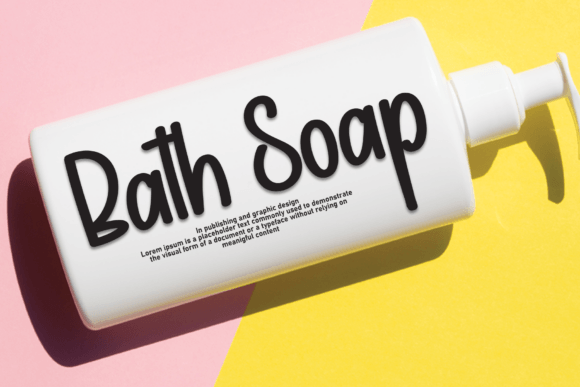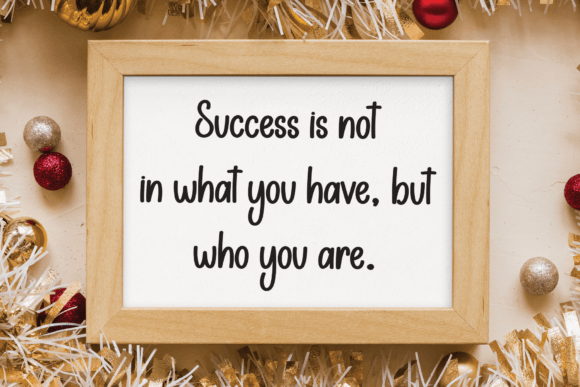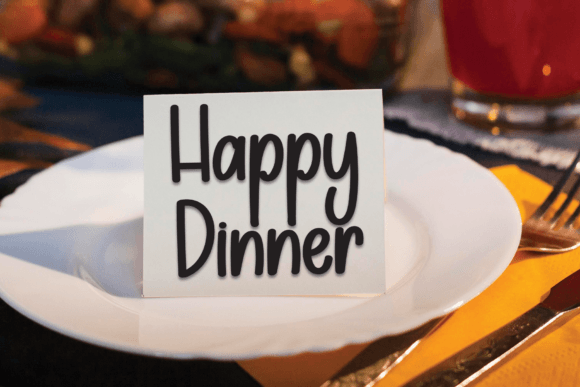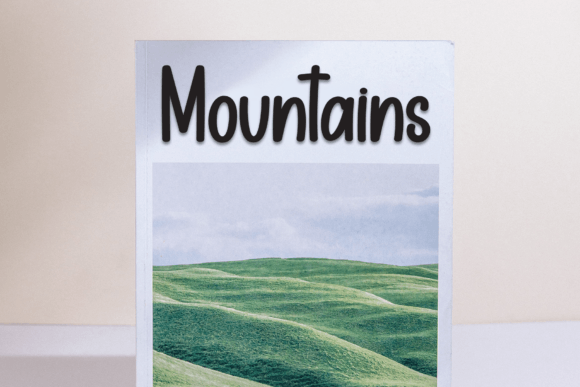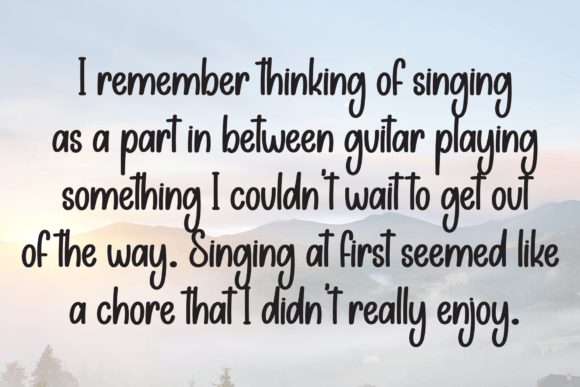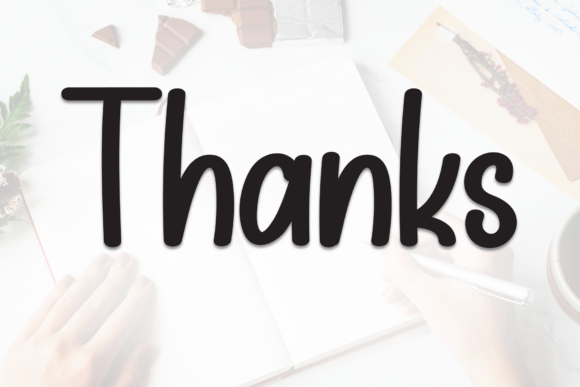
Introduction to Happy Saturday Font Font Font
Fonts play a crucial role in design, and the Happy Saturday Font Font font is a typeface that brings both character and versatility to any project. Whether you’re working on a branding project, a website, or a print design, the Happy Saturday Font Font font offers a unique style that can elevate your work.
Happy Saturday is a lovely and timeless handwritten font.
It is the best choice for creating eye catching logos, branding and quotes Every letter has a unique and beautiful touch, which will make your design come alive.
Key Features of Happy Saturday Font Font Font
Why Choose Happy Saturday Font Font Font?
The Happy Saturday Font Font font is more than just a typeface – it’s a design tool that helps you communicate your message with style and clarity. Its unique character set and versatile design make it suitable for a wide range of applications, from elegant invitations to bold headlines.
With its carefully crafted letterforms and balanced proportions, the Happy Saturday Font Font font ensures readability and visual appeal across all mediums.
What makes Happy Saturday Font Font font special?
The Happy Saturday Font Font font stands out with its unique design, exceptional readability, and versatility across various design applications.